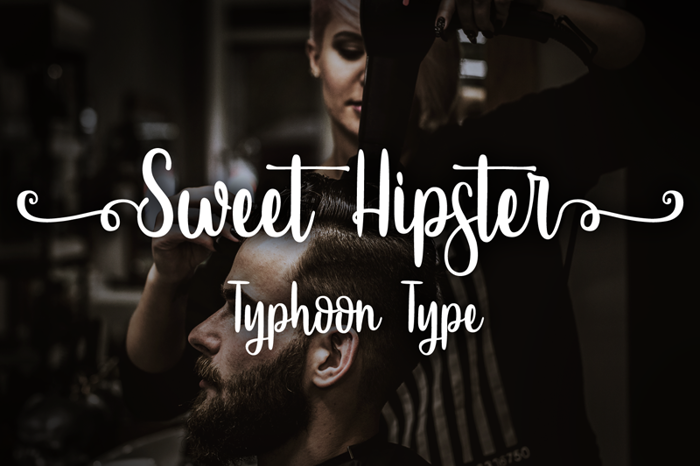
Sweet Hipster Font
Type ( before word to get beginning swash and Type ) after word to get the ending swash.
Example : (Sweet Hipster)
How would you get those side extras that come off each end of the word/phrase?
@8Kanak8 you use parentheses! 😄